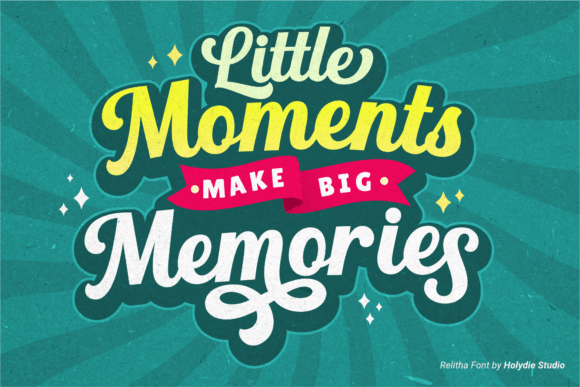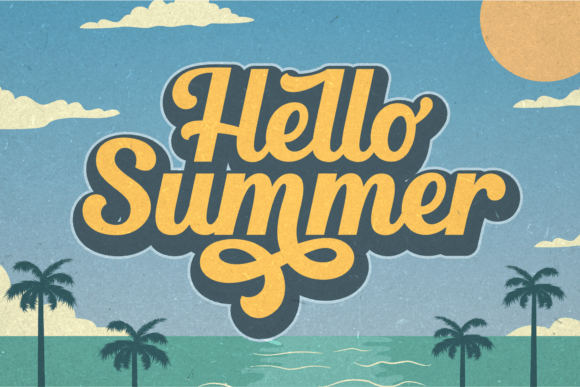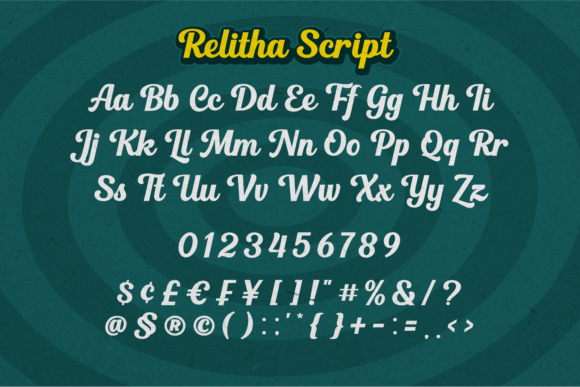
Relitha Font
Relitha is a vintage retro font inspired by retro typography and lettering in the 70s and 80s combined with a bold typography style.
This font is perfect for vintage, groovy and retro designs, badges, logos, t-shirts, posters, branding, packaging, signage, book covers, and so much more! This font is PUA encoded, which means you can access all of the glyphs and swashes with ease!